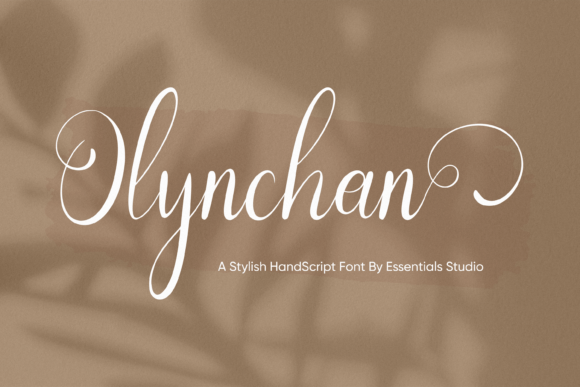
Behold, Olynchan Font - A Symphony of Script Elegance Awaiting Your Creative Touch!
Olynchan Font, the brainchild of Essentials Studio, is an exquisite flowing handwritten font that exudes elegance and sophistication. This masterpiece is crafted with an artistic flair that effortlessly blends timeless beauty with contemporary charm. Embrace the allure of Olynchan Font and embark on a creative journey that knows no bounds.
Immerse yourself in the world of Olynchan Font, a script masterpiece that dances across the digital canvas with grace and poise. Its meticulously designed characters embody the essence of elegance, inviting you to craft designs that radiate an air of refinement and luxury.
With Olynchan Font at your fingertips, unlock a universe of creative possibilities. Whether you're designing product packaging, embarking on a branding project, or crafting captivating social media graphics, Olynchan Font will elevate your creations to new heights. Its versatility extends to wedding invitations and personal projects, adding a touch of timeless elegance to every word you pen.
Beyond its aesthetic appeal, Olynchan Font is a practical choice for discerning designers. Its impeccable readability ensures that your message is conveyed with clarity and impact. Whether you're presenting a research paper, composing a heartfelt letter, or creating marketing materials, Olynchan Font guarantees a seamless reading experience.